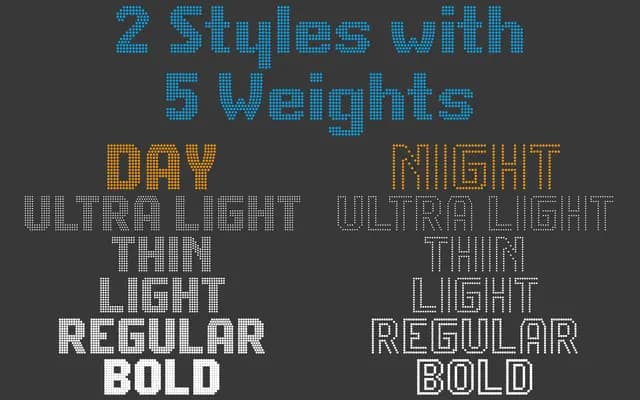
CA Viva Las Vegas
Cape Arcona · Thomas Schostok
A layered light-bulb display font in two stackable styles, drawn from the neon and incandescent concert hall signage of 1970s Las Vegas.
Built on a Day and Night system across five weights from Ultra Light to Bold, the two styles are designed to be stacked and colour-mixed for a wide range of theatrical combinations. With 574 glyphs per style, Western, Central European and Cyrillic encoding, and a variable font option, it has reasonable range for a display face. It performs best at large sizes where the individual bulb details read clearly.
The foundry classifies it as Display Techno; it is a layered light-bulb font directly referencing 1970s Las Vegas concert hall signage, built for large-scale decorative use rather than text setting.